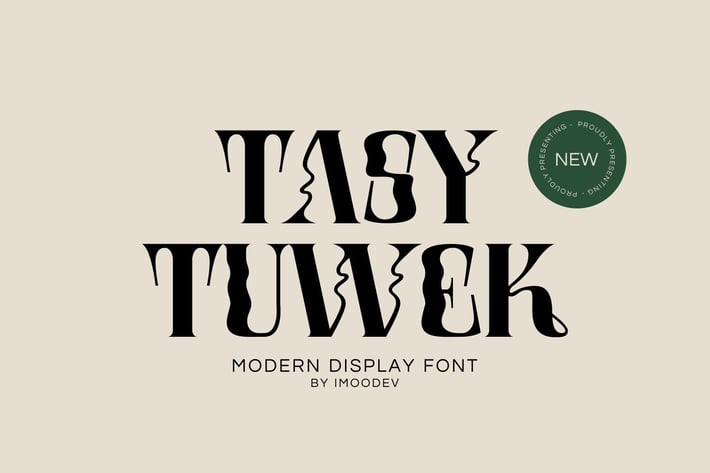
Tasy Tuwek - Beautiful Serif Fonts
imoodev
Tasy Tuwek is beautiful serif fonts with visual elegance, smooth curves, and beautiful ligatures clear, making your work look true and attractive.
A versatile font that works in both large and small sizes. This font is suitable for a wide variety of projects such as invitations, logos, branding, magazine, photography, card, product packaging, product mockup, mugs, quotes, posters, labels, signatures, and more.
A font that is perfect for all business sectors including personal projects, studio, corporate, creative agency, industrial, company, etc.
Punctuation, Number, and Symbol
* Multilingual Support ÀÁÂÃÄÅÆÇÈÉÊËÌÍÎÏÐÑÒÓÔÕÖØÙÚÛÜÝ